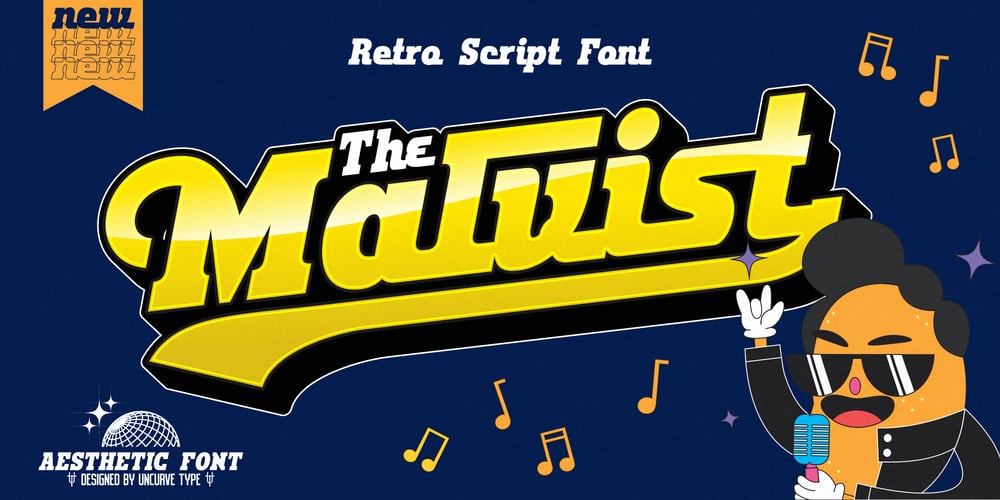
Malvist Font Family was designed by Ferry Septian and published by Uncurve. Malvist contains 1 styles and family package options. Introducing “Malvist,” a captivating retro script font that channels the spirit of vintage posters, classic stickers, and iconic baseball logos. Malvist is an aesthetic typography font designed to infuse your projects with nostalgic charm and timeless style.With a range of alternate characters and end swashes, Malvist allows for creative flexibility, making your designs more eye-catching and dynamic, much like classic baseball apparel. Whether you’re creating authentic logos, retro-themed designs, posters, branding materials, magazine spreads, album covers, movie titles, sports merchandise, apparel designs, flyers, labels, or product packaging, Malvist adds a distinctive touch that stands out.Bring a retro vibe to your projects with Malvist, and watch as your designs come alive with vintage flair and modern appeal. Perfect for any creative endeavor, Malvist is your go-to font for adding a nostalgic yet fresh aesthetic to your work.In summary, Malvist is a versatile retro script font inspired by vintage posters, stickers, and baseball logos, ideal for logos, posters, branding, magazines, album covers, movies, sports, apparel designs, flyers, labels, product packaging, and more. Elevate your designs with the timeless elegance of Malvist.